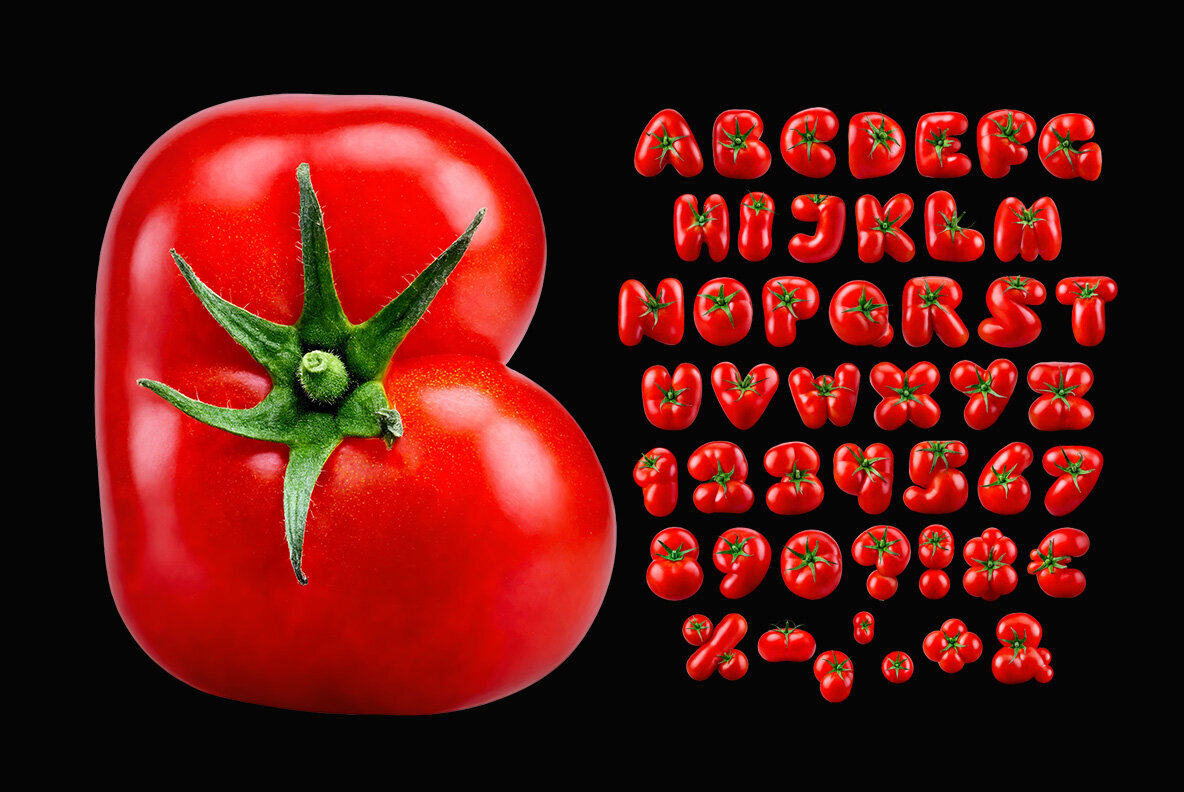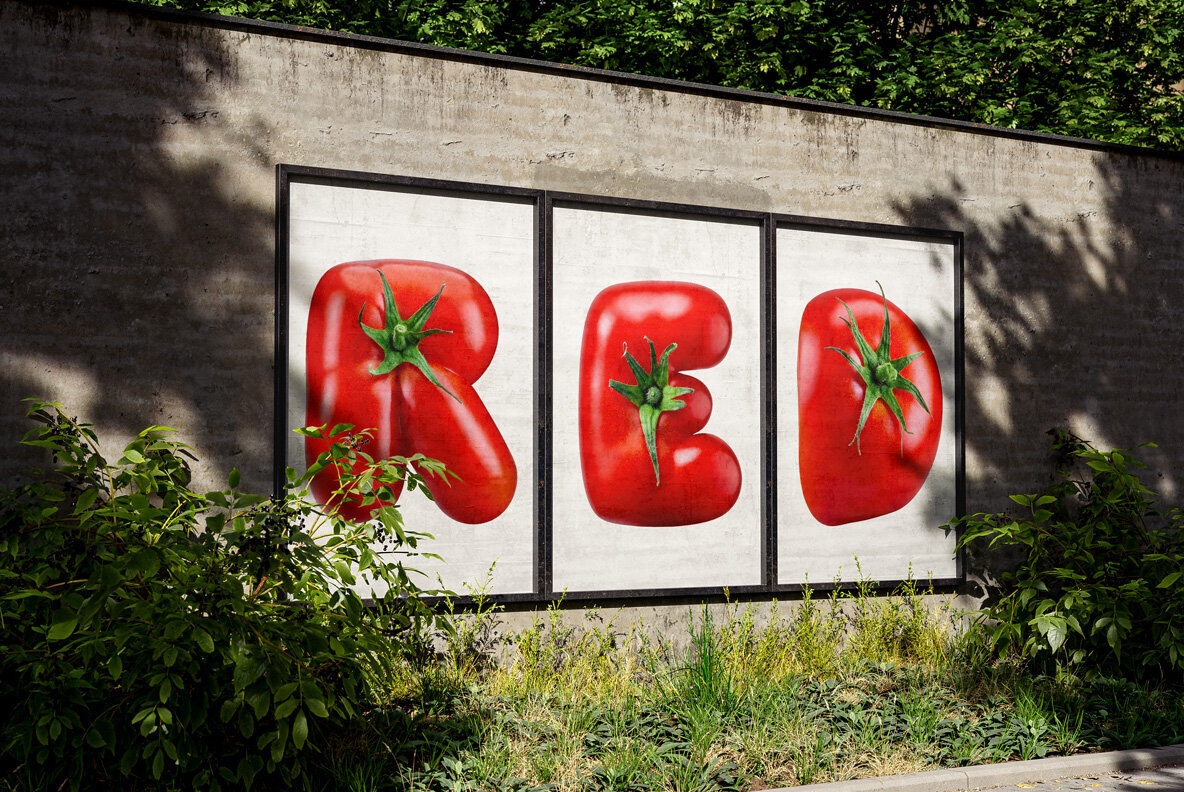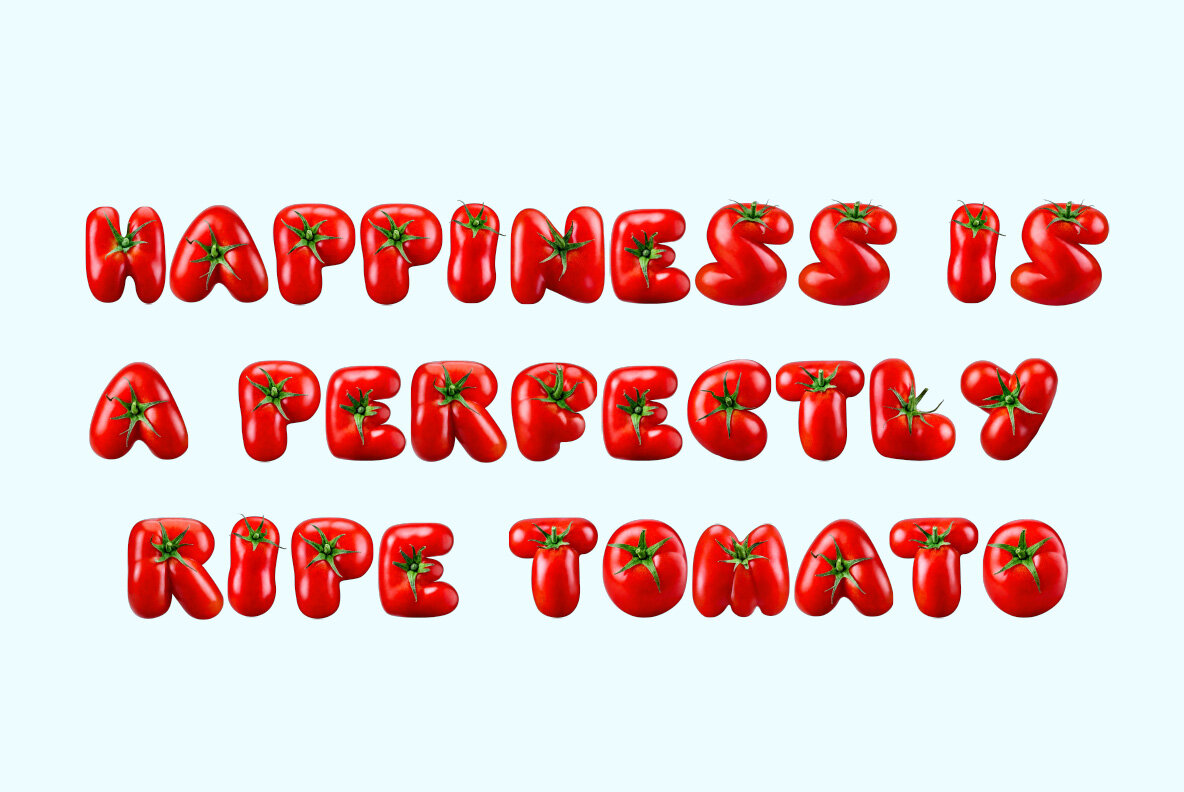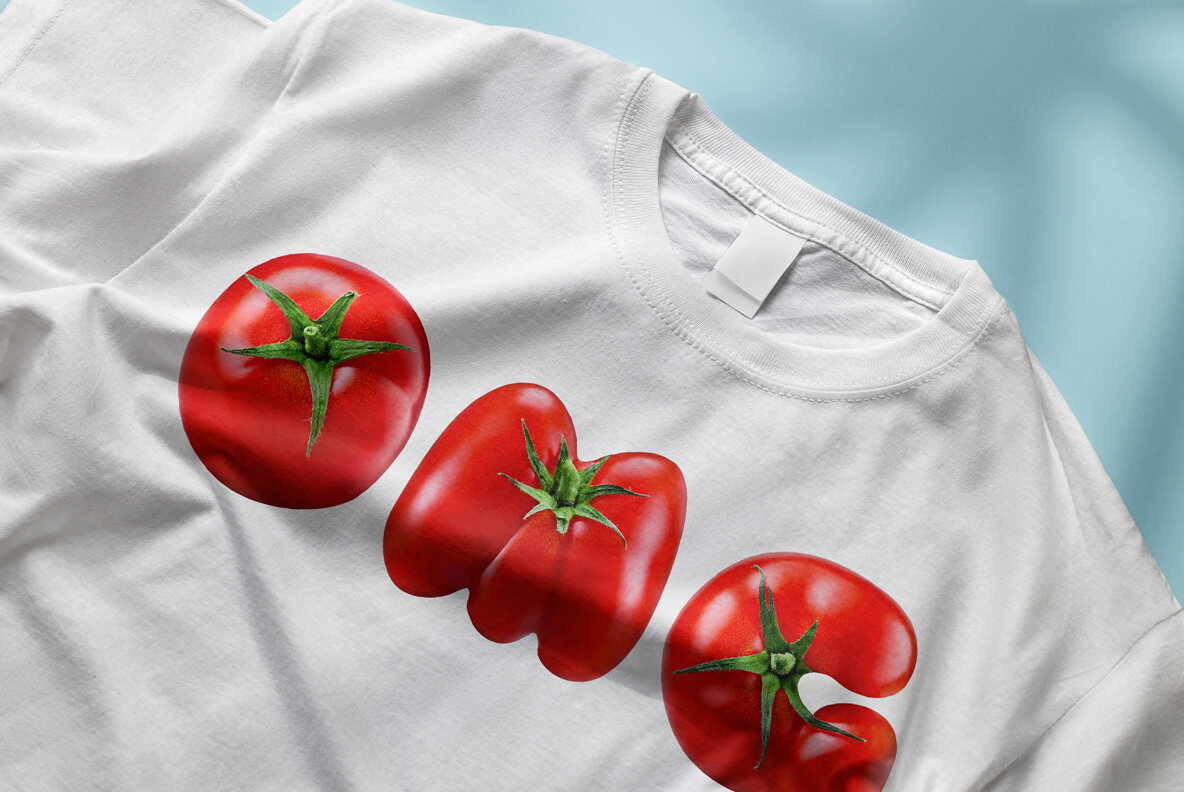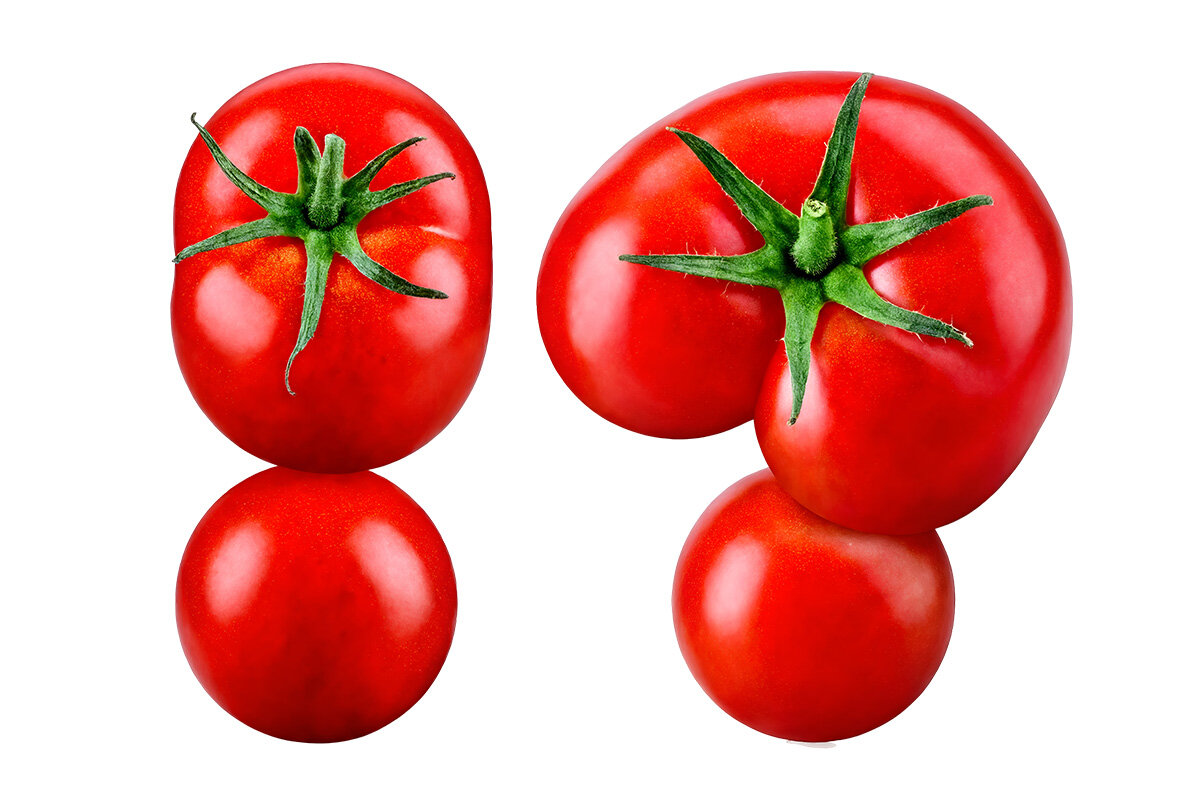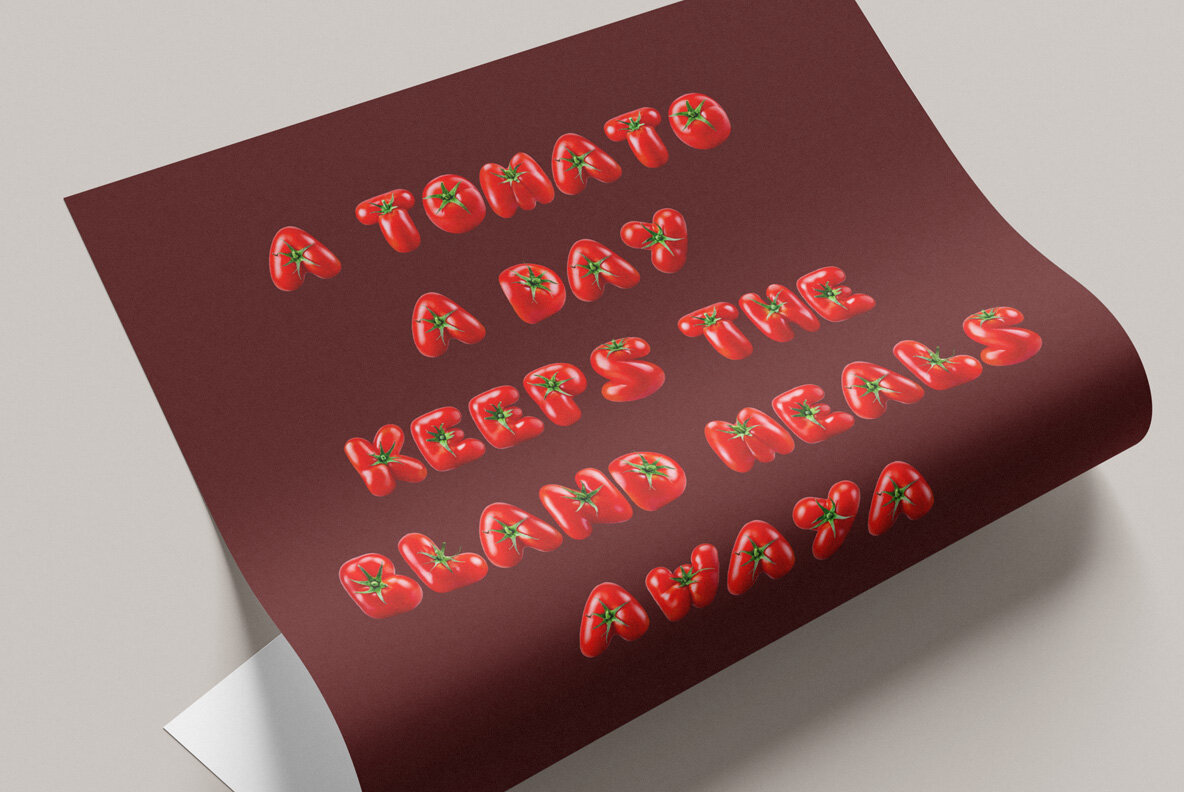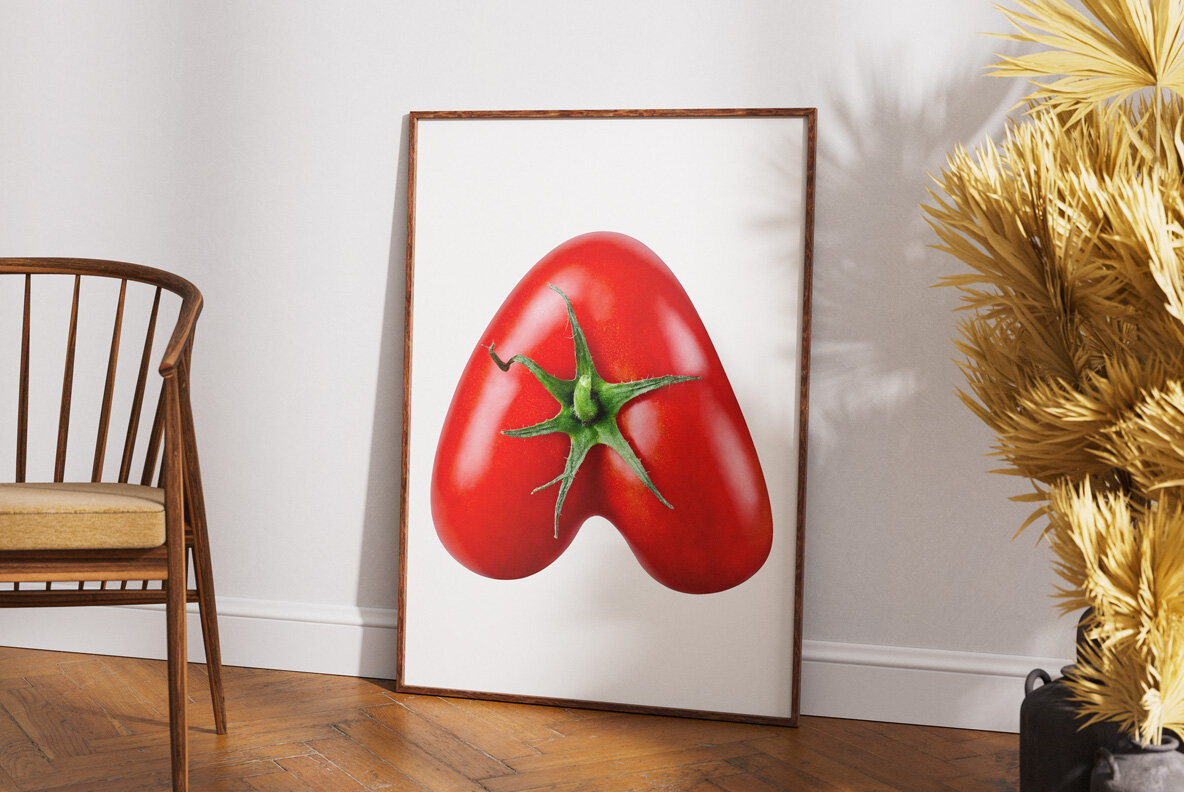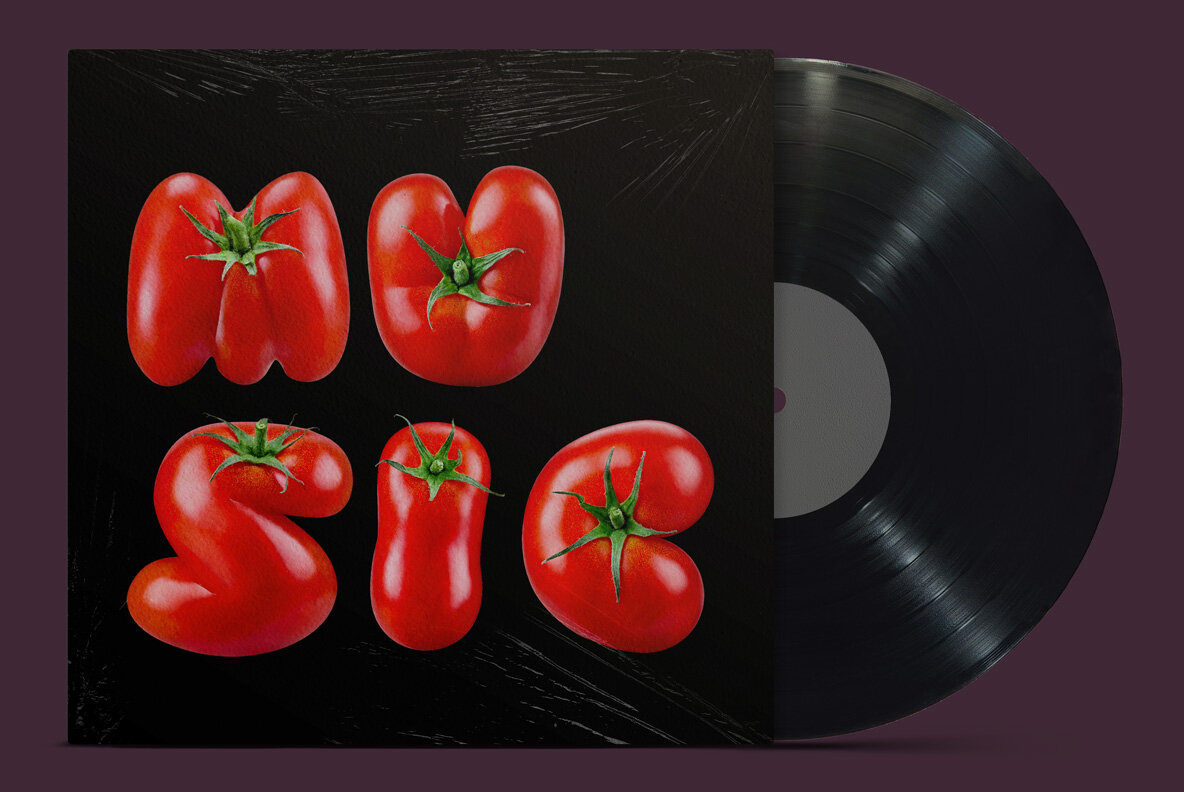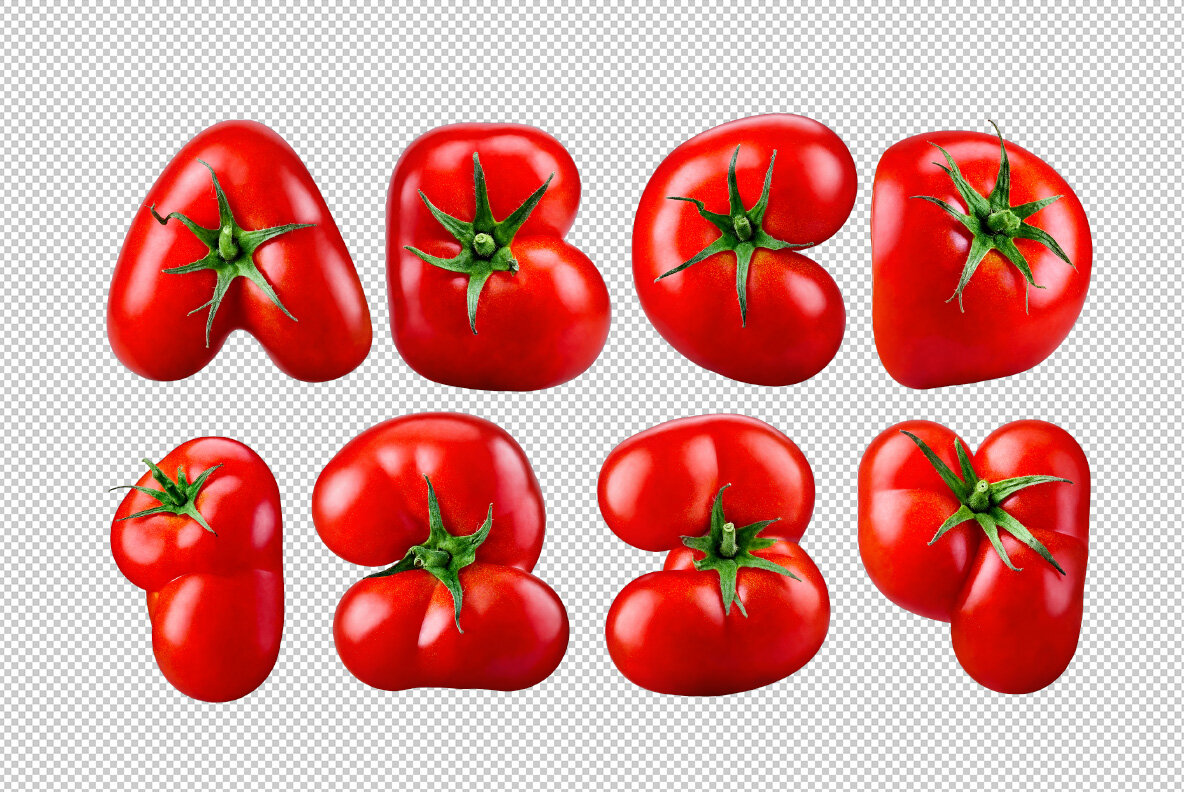
Fresh Tomato by Handmadefont unleashes a lively and vibrant Alphabet inspired by the natural charm of ripe red tomatoes. Ideal for breathing freshness into food branding, farm-to-table promotions, or playful typography projects, this font infuses each word with creativity and a garden-fresh appeal. Crafted from tomatoes, every letter offers a unique and engaging aesthetic perfect for designs that demand originality and flare.